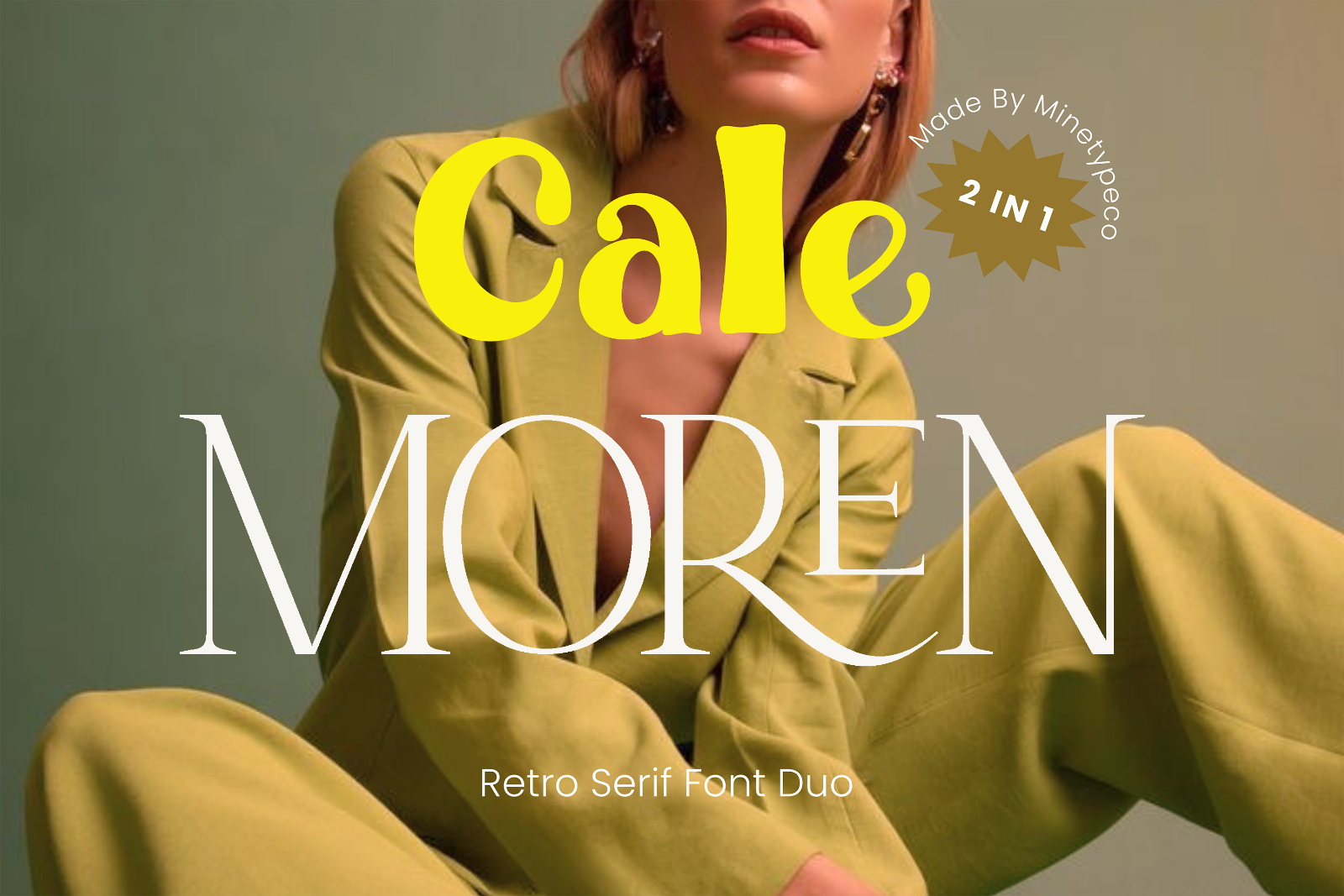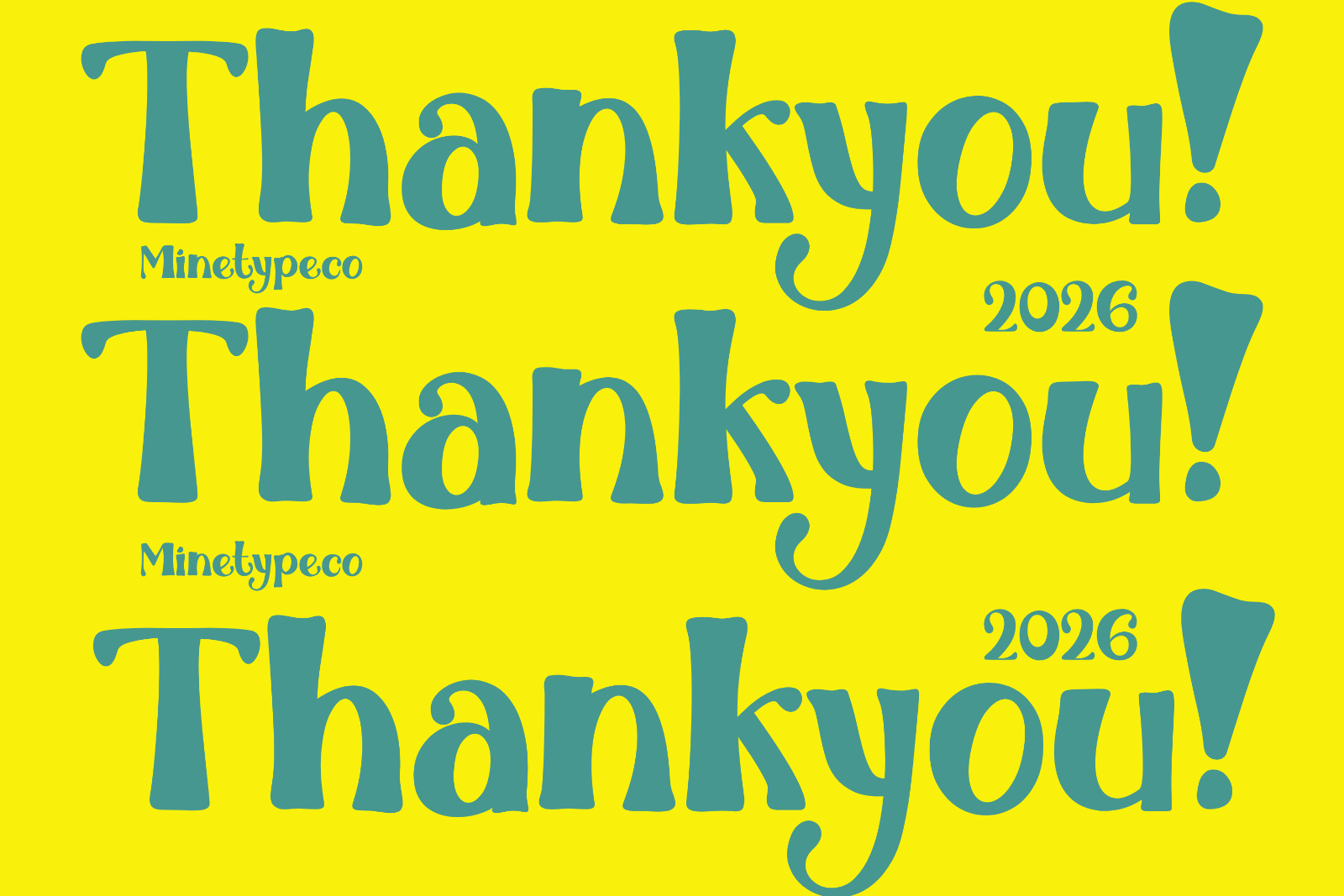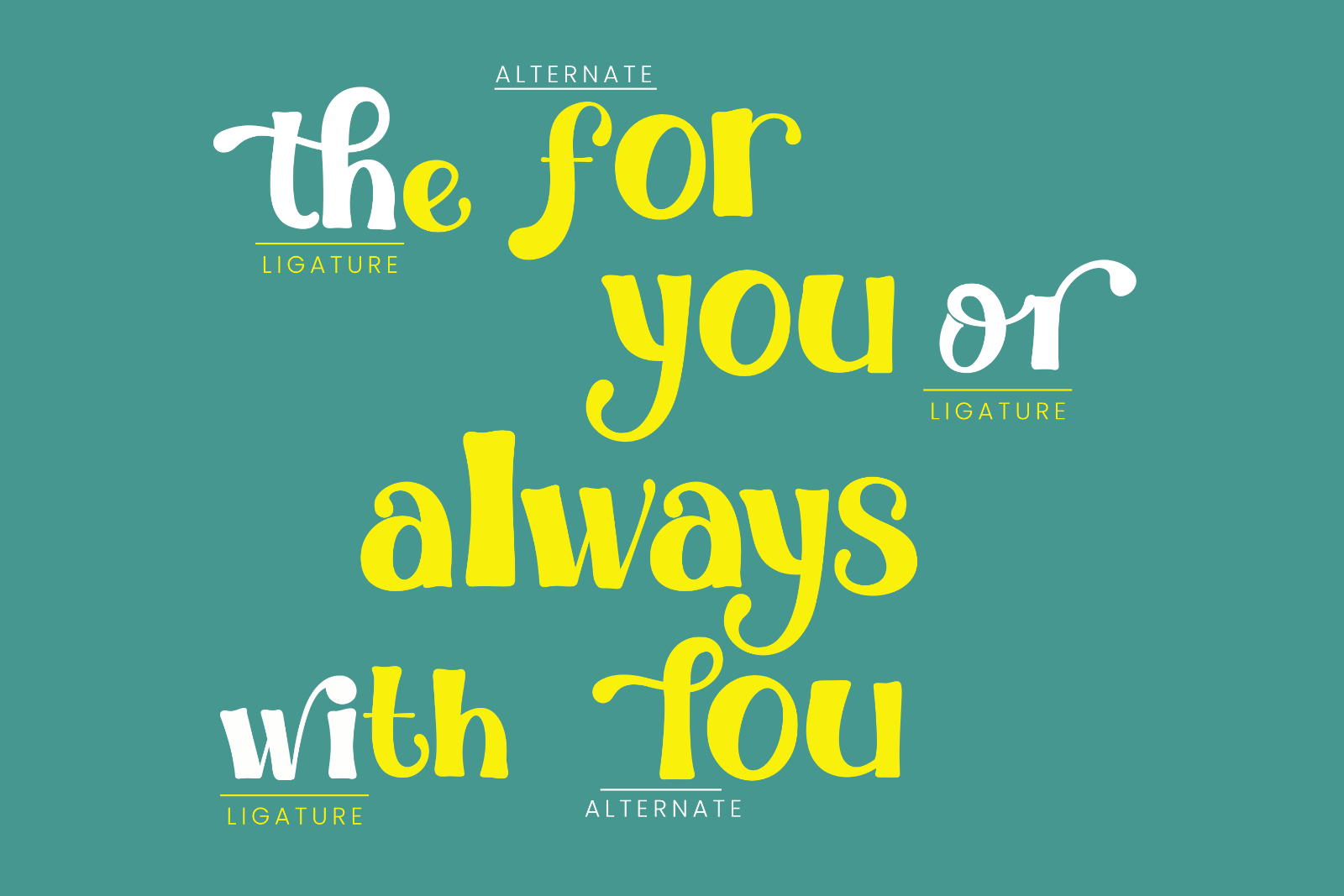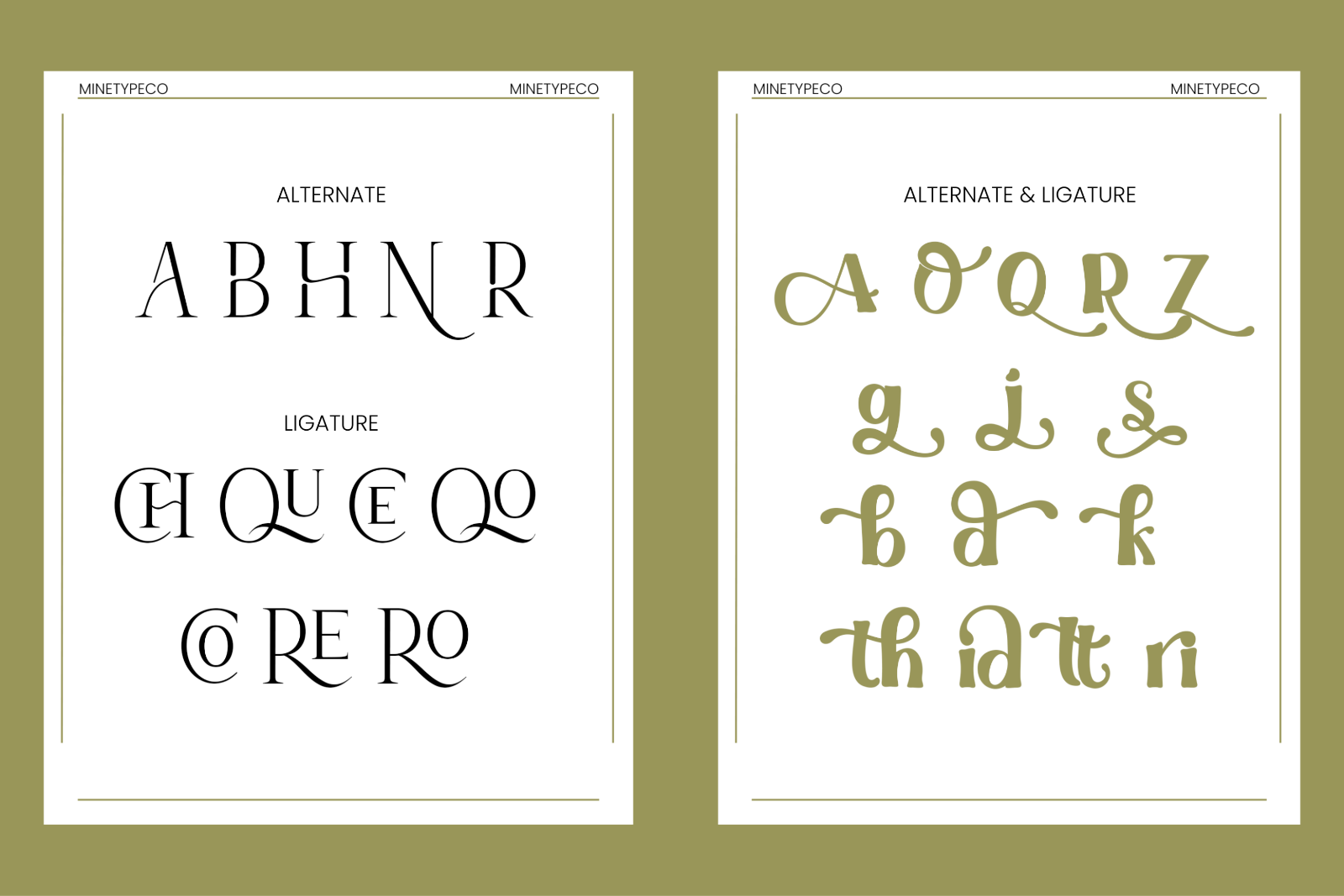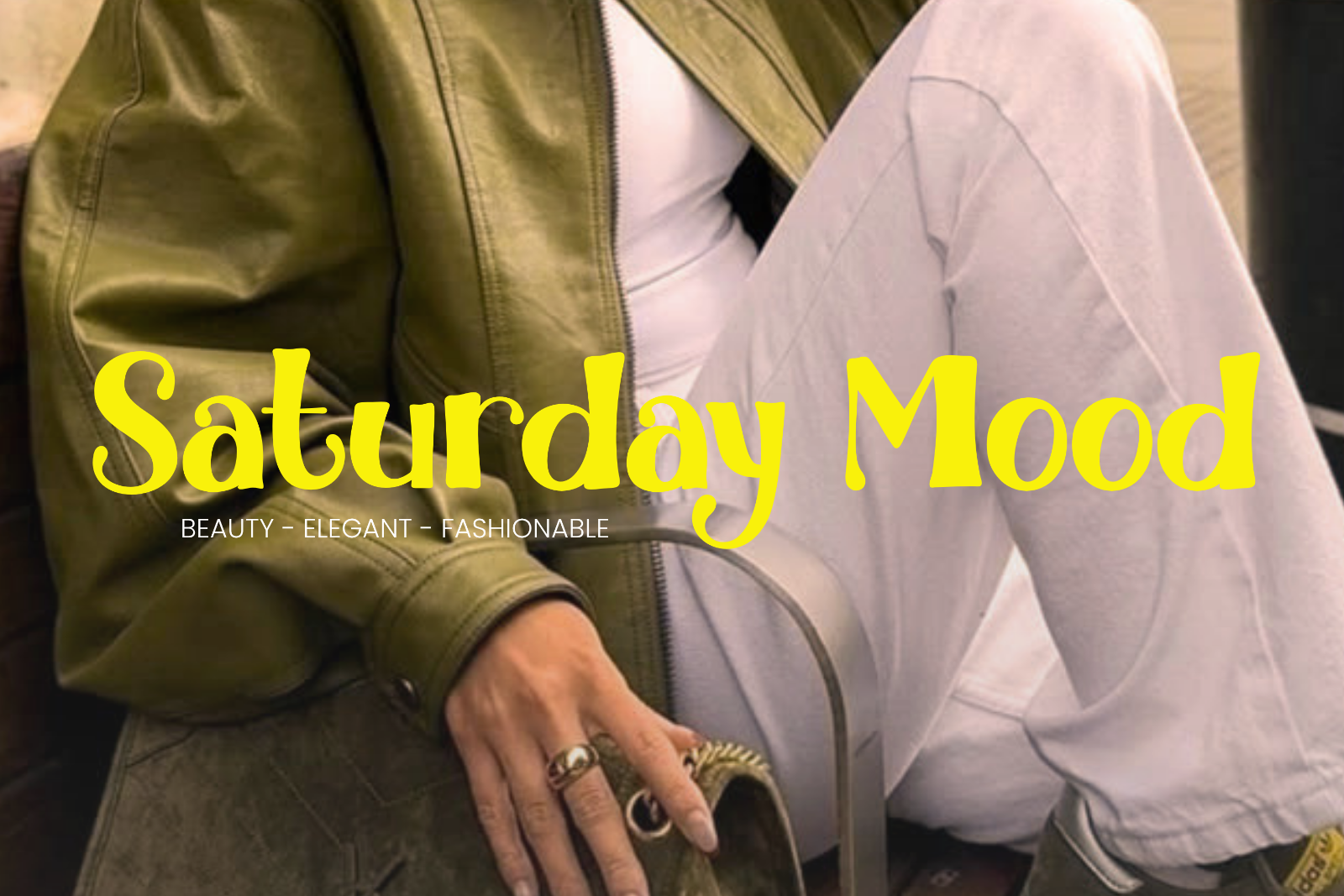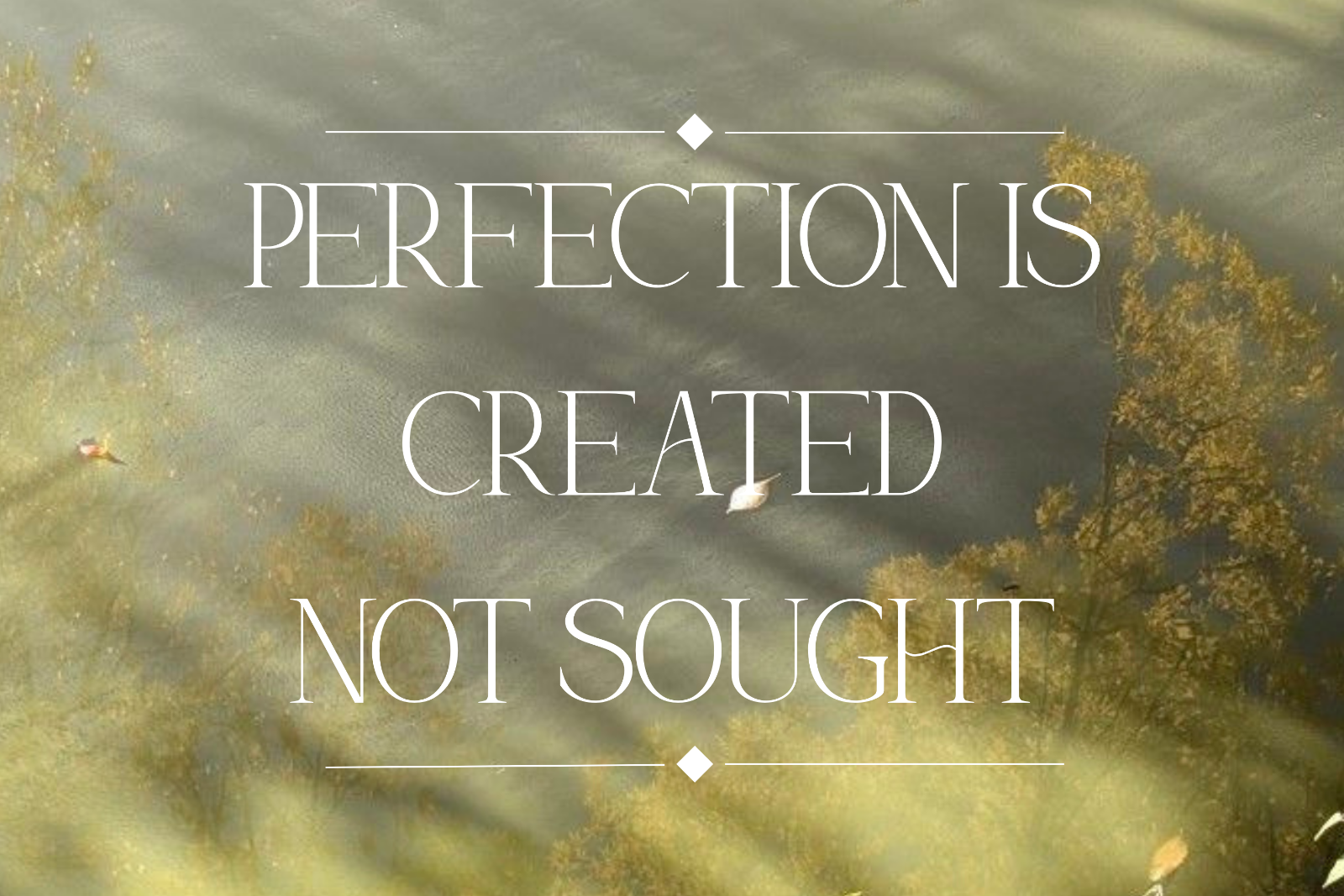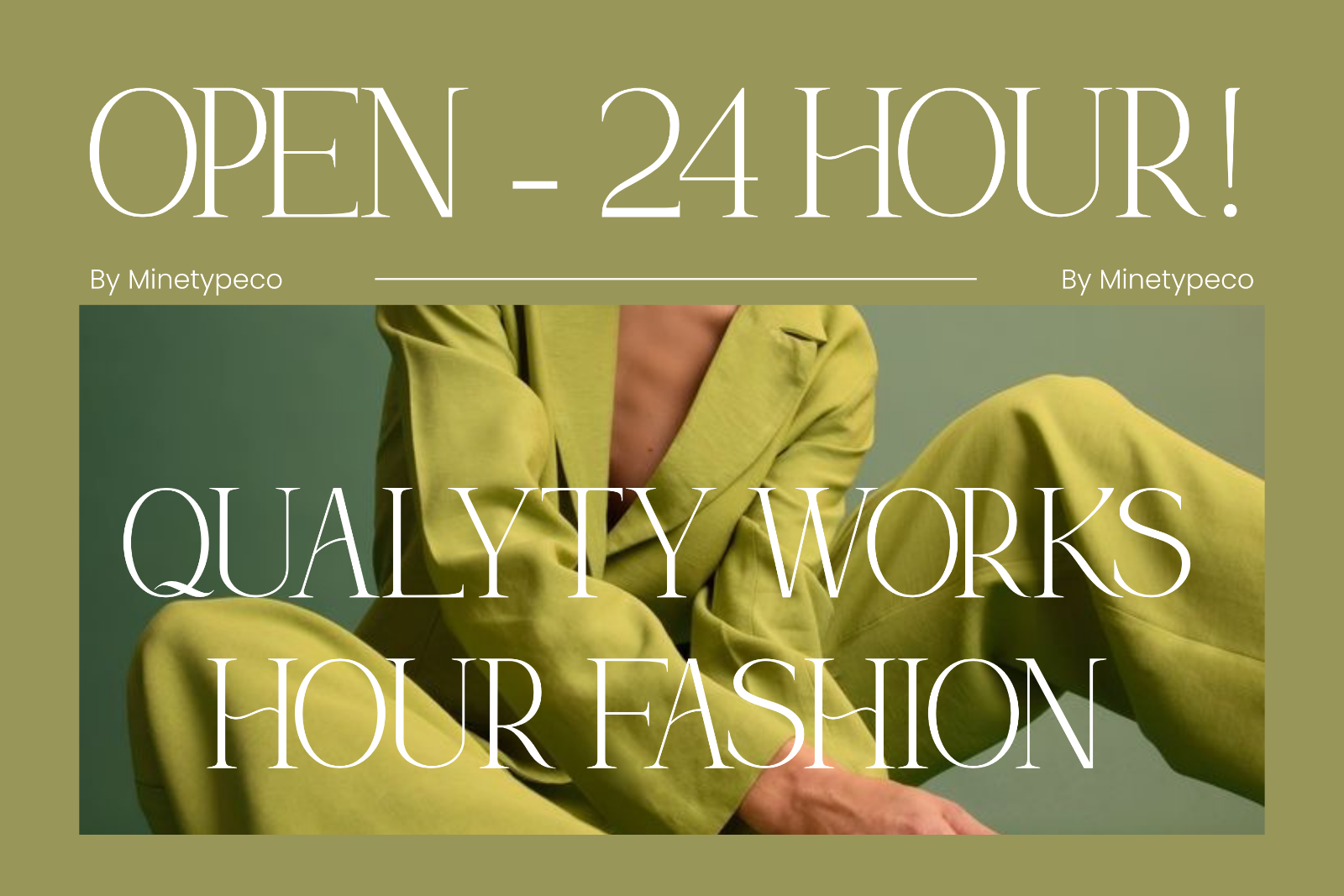
Celemoren is a modern elegant retro font duo that beautifully blends timeless vintage charm with contemporary sophistication. Designed with refined letterforms, graceful detail, and character, this versatile duo creates a harmonious belace between classic elegance and modern style.
Perfect For:
• Logo & branding projects
• Wedding invitations
• Editorial layouts
• Packaging design
• Book covers
• Fashion & beauty branding
• Quotes and signature-style typography
• Modern Retro font duo style
• Uppercase & lowercase characters
• Alternate & Ligature